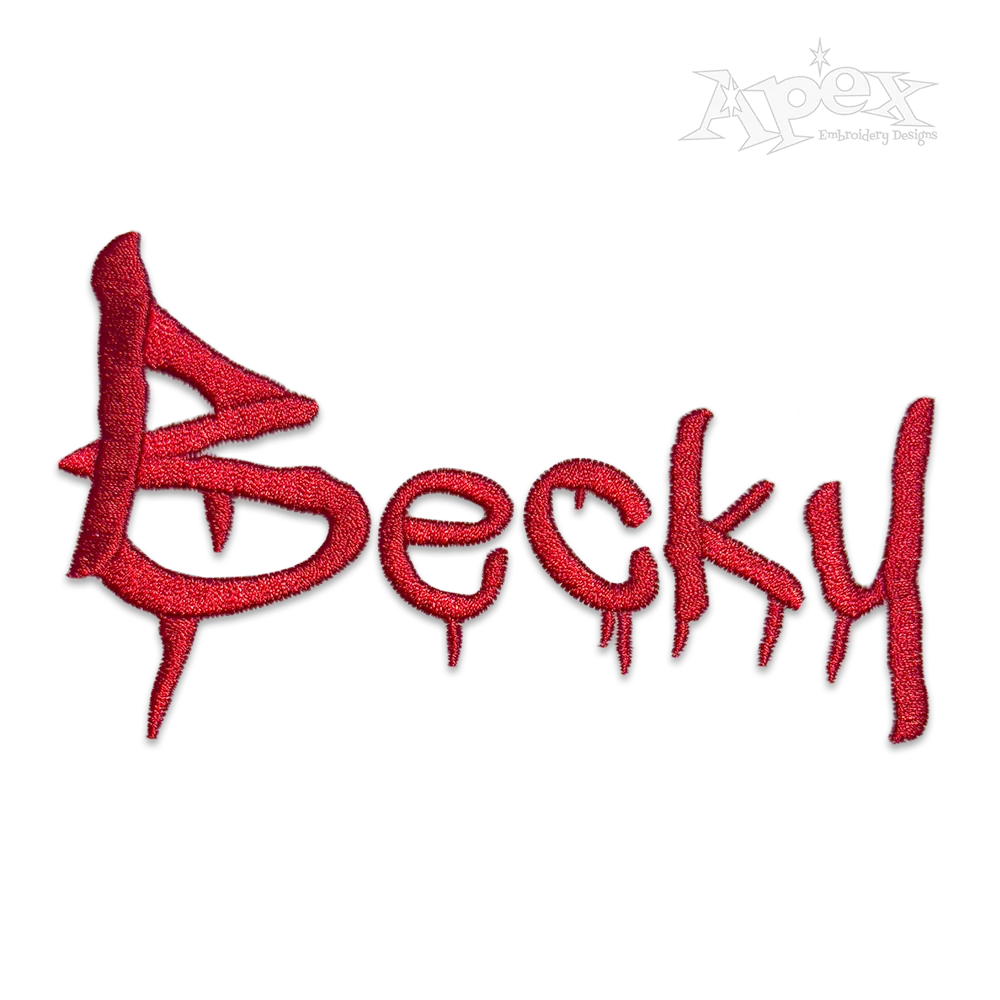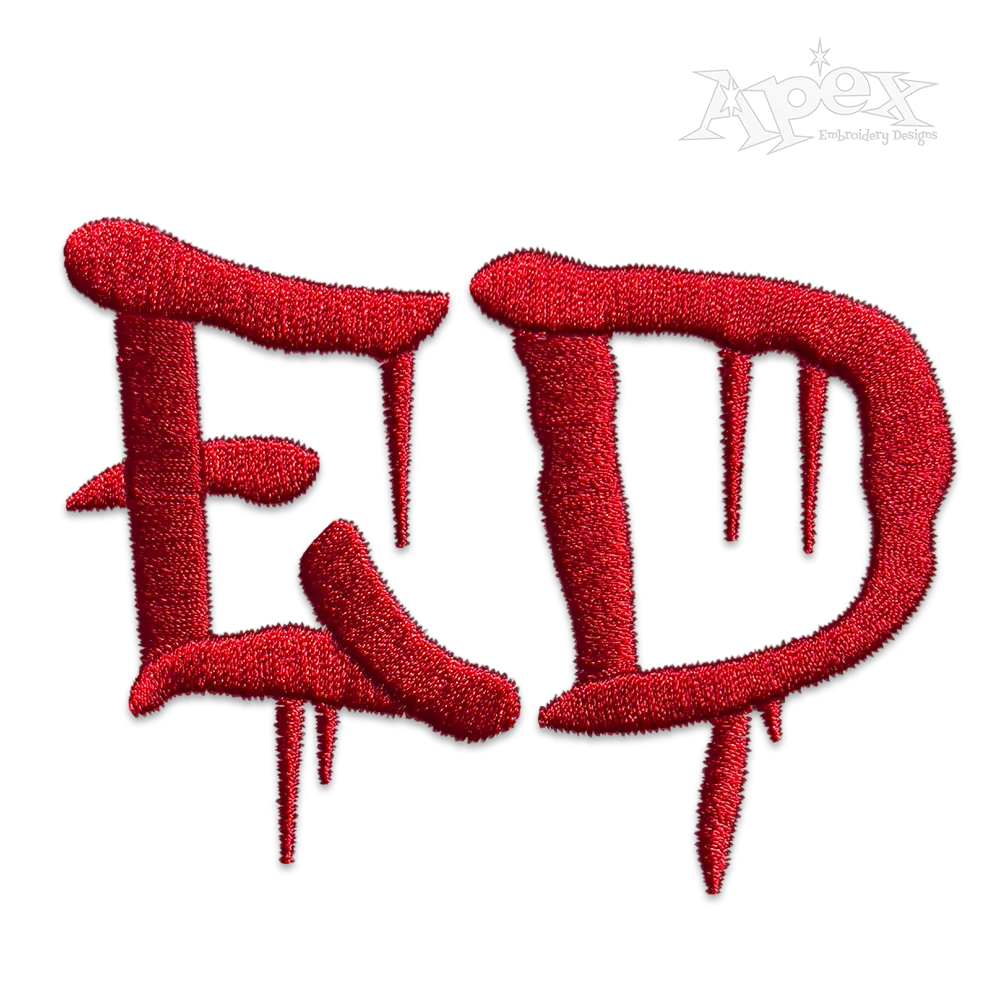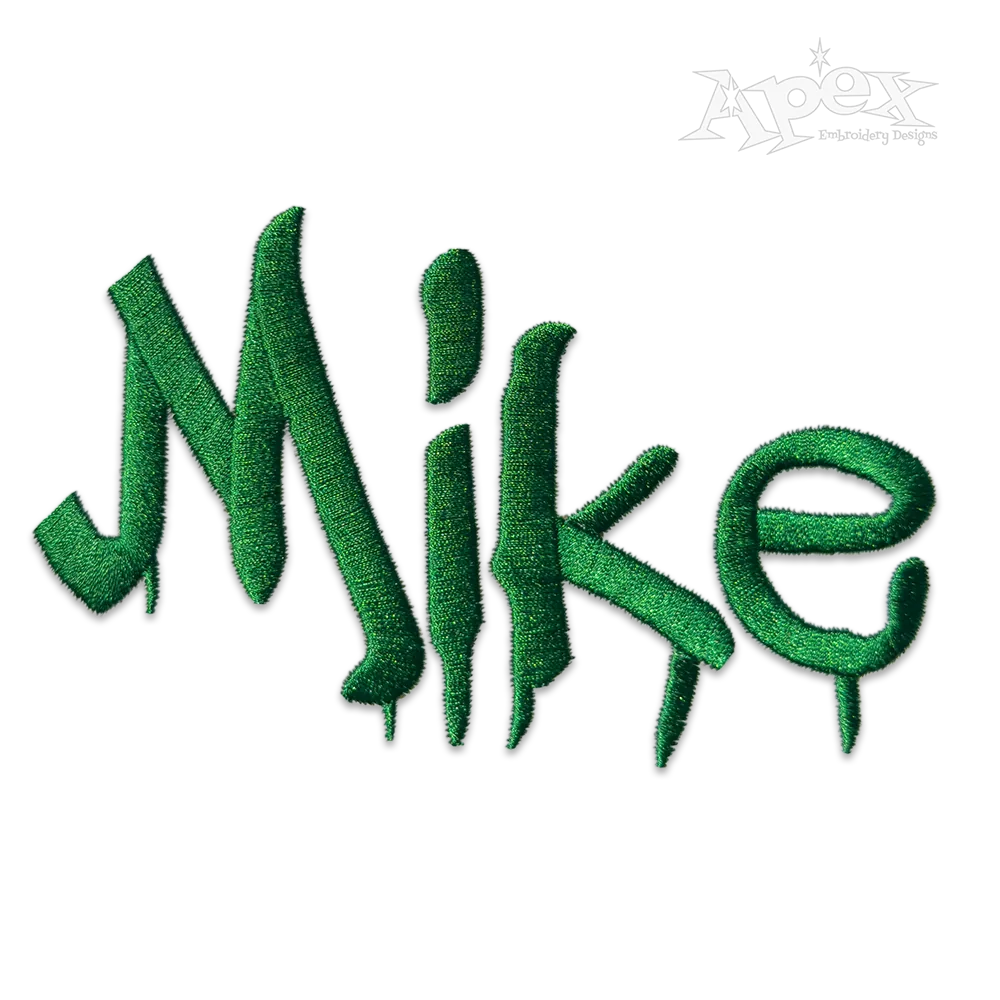
Bloody Halloween Embroidery Font
Born from a love of classic midnight horror cinema and playful gothic drama, this dripping blood alphabet brings theatrical suspense to the embroidery hoop. When translating the organic, viscous motion of falling droplets into machine embroidery, our studio focused on capturing both macabre intensity and refined stitching elegance. Each letterform appears to liquefy and pool with sinister delight, turning ordinary fabric into a handcrafted statement piece that is equal parts spooky, sophisticated, and spirited.
Digitized with meticulous precision to maintain clean edges and smooth satin flow across multiple scales, this versatile typography collection includes uppercase letters, lowercase letters, and numbers (0–9) in the following heights:
Project Ideas for Bloody Halloween Embroidery Font
- Bespoke Trick-or-Treat Totes: Personalize sturdy canvas or velvet candy bags with custom names that playfully drip with holiday excitement.
- Haunted Dinner Linens: Embroider cocktail napkins, table runners, and dinner cloths for gothic dinner parties and Halloween soirees.
- Statement Streetwear & Loungewear: Transform oversized fleece hoodies, denim jacket backs, or distressed sweatpants into horror-inspired streetwear treasures.
- Theatrical Kitchen & Bar Towels: Create wicked host gifts by stitching eerie puns, monograms, or spooky party titles onto rustic linen tea towels.
- Costume & Party Keepsakes: Add personalized lettering to vampire capes, trick-or-treat pouches, or bespoke Halloween party favor bags.
- Pocket Headers & Yokes: Position letters directly above breast pockets or waist seams so the dripping terminals naturally cascade downward into the garment's construction lines.
- Diagonal Corner Placement: Angle names or monograms diagonally across the lower corner of napkins and blankets, anchoring the fabric with a touch of chilling elegance.
- Center-Chest Layouts: Utilize the 2-inch size across the chest of sweatshirts and tees for a bold, cinematic horror-poster aesthetic.
- Sleeve & Cuff Runs: Use the 0.75-inch or 1-inch variants to run spooky words down a forearm seam or along a cuff for subtle, creeping detail.
Bloody Halloween Embroidery Font Craft & Letterform Details
Digitizing liquid drips requires a profound respect for stitch direction and push-pull dynamics. Rather than treating each glyph as a static silhouette, we mapped the satin stitch paths to mirror the physical gravity of downward-flowing fluid. Traveling stitches are tucked securely beneath dense column work, allowing each drip to transition seamlessly from a slender, tensioned stem into a rich, swollen droplet at the terminus.
We carefully calibrated underlay stitching to lift the glossy top satins away from the fabric nap, ensuring the distinctive droplets stay crisp and rounded whether stitched on dense canvas, textured linen, or plush holiday fleece. Density is strictly balanced at the junction points where dripping tendrils branch from the primary letter stems, preventing thread buildup and bulletproof stiffness while delivering an intensely dimensional, fluid finish every stitch of the way.